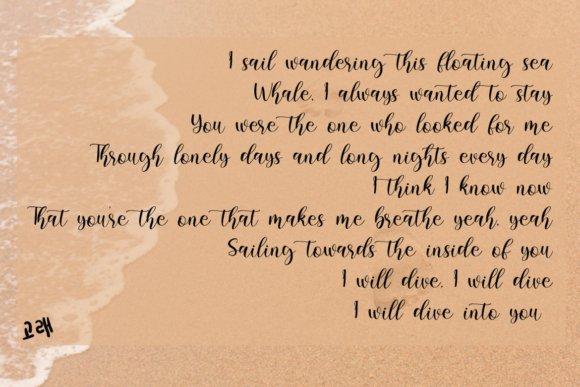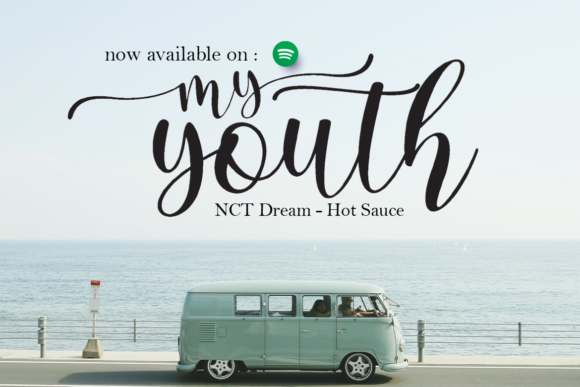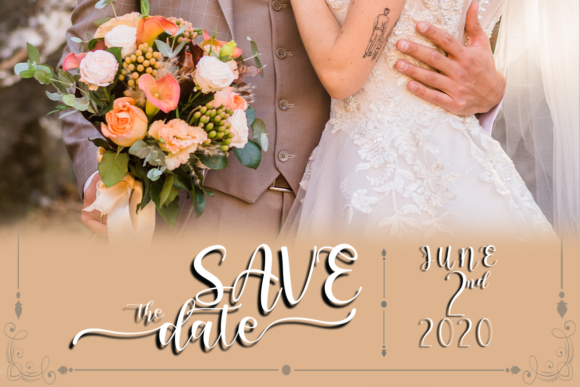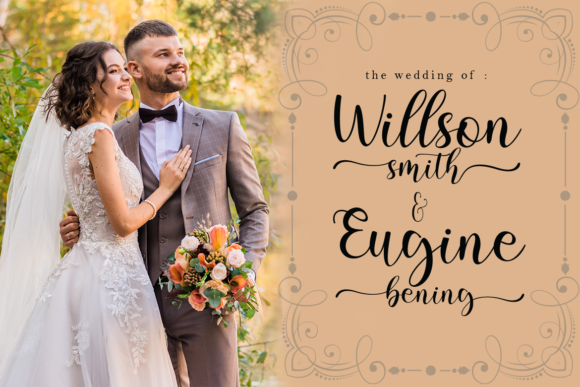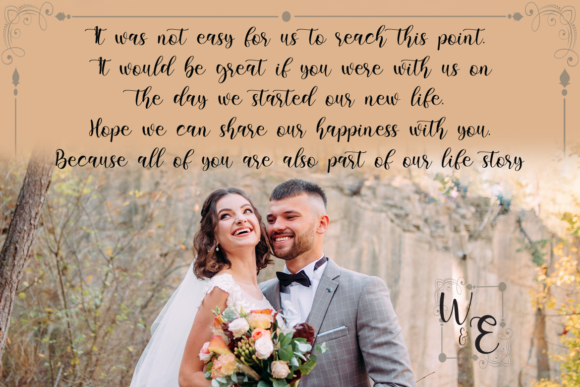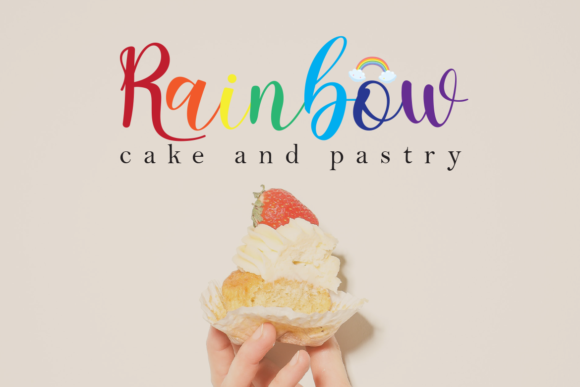
The Ultimate Guide to Beach Font: Elevate Your Designs with Luxury and Elegance
I’ll never forget the moment I stumbled upon the perfect font for a client’s beach-themed wedding invitation. I had been searching for hours, trying out different fonts, but none seemed to capture the essence of a luxurious beach vacation. That was until I discovered Beach Font – a beautiful, light handwritten font that added a touch of elegance to the design. In this article, I’ll share my experience with Beach Font, its features, and how to make the most of it in your design projects.
A Personal Review of Beach Font
Beach Font is a stunning addition to any design project, and here’s what I love about it:
- ✨ Unique feel: Beach Font has a distinct, handwritten style that sets it apart from other fonts.
- ✅ Ease of use: The font is PUA encoded, making it easy to access all the amazing glyphs and ligatures.
- 💫 Luxury spark: Beach Font adds a touch of sophistication and elegance to any design project.
While Beach Font is an excellent choice, there are a few minor quirks to consider:
- 🤔 Limited multilingual support: Beach Font may not support all languages, so be sure to check the character set before using it for a multilingual project.
- ⚠️ Requires OpenType features: To access all the glyphs and ligatures, you’ll need to use a design platform that supports OpenType features.
The Story Behind Beach Font
Beach Font was designed by a team of creatives who wanted to capture the essence of a luxurious beach vacation. Inspired by the sun, sand, and sea, they crafted a font that would evoke feelings of relaxation and sophistication. With its unique feel and stunning impact, Beach Font has become a popular choice among designers and crafters.
| Font Name | Beach Font |
| What is Beach Font? | Beach Font is a beautiful, light handwritten font with a unique feel and a stunning impact. |
| Is Beach Font PUA encoded? | Yes, Beach Font is PUA encoded, making it easy to access all the amazing glyphs and ligatures. |
| Does Beach Font support multilingual text? | Beach Font may not support all languages. Be sure to check the character set before using it for a multilingual project. |